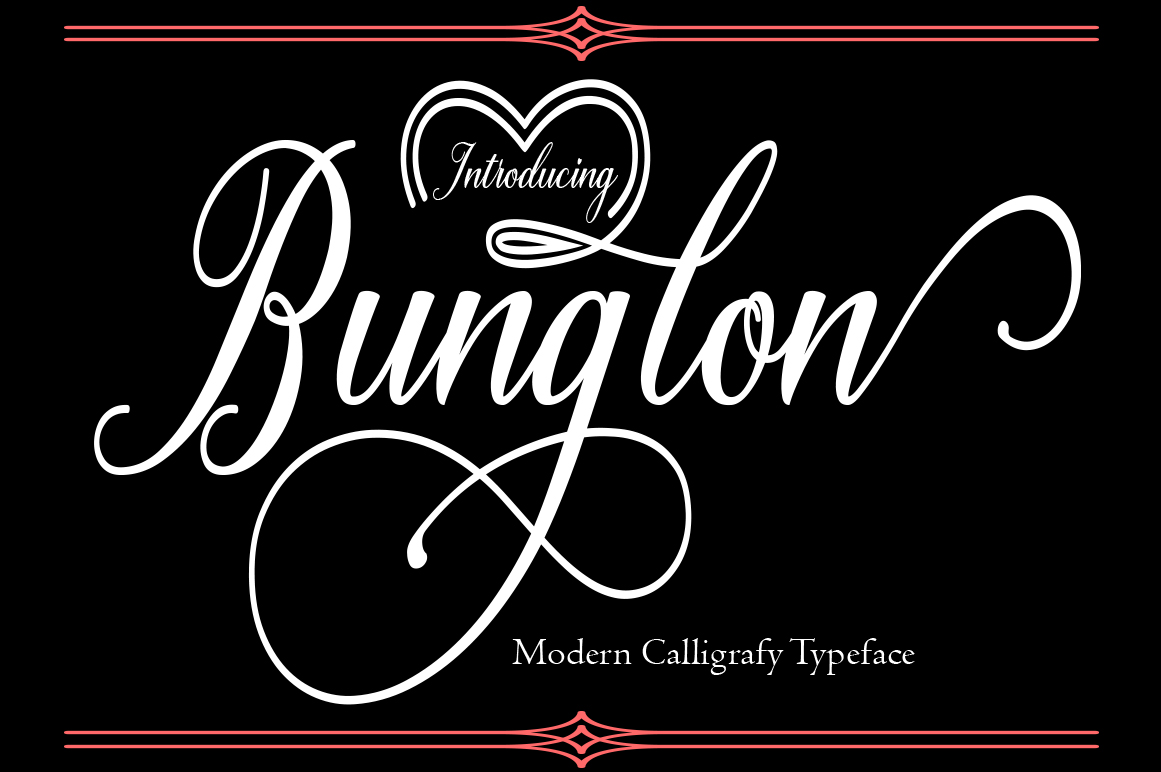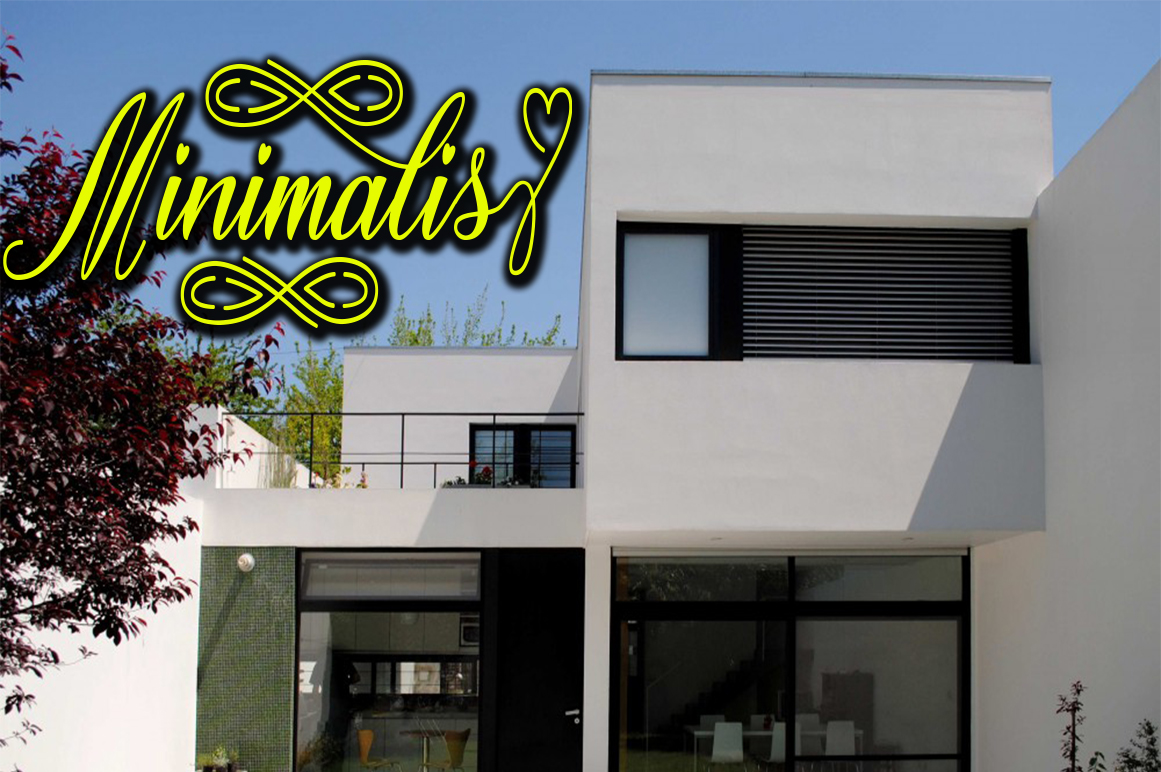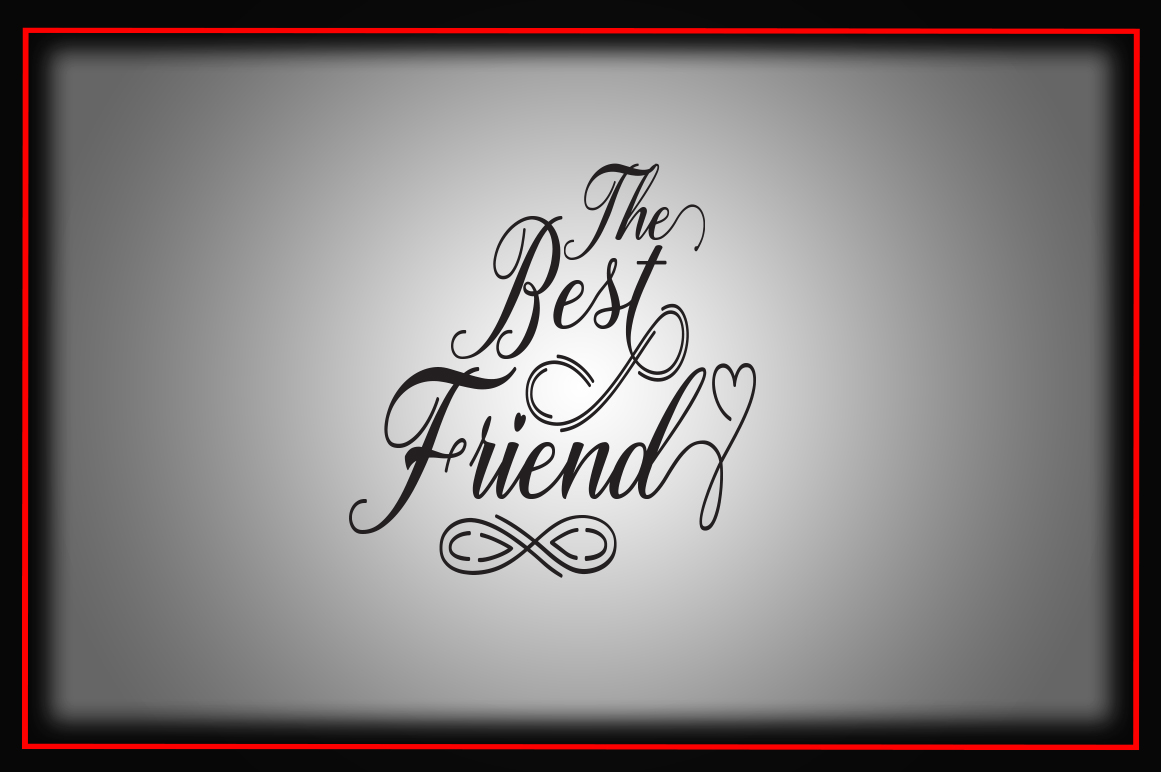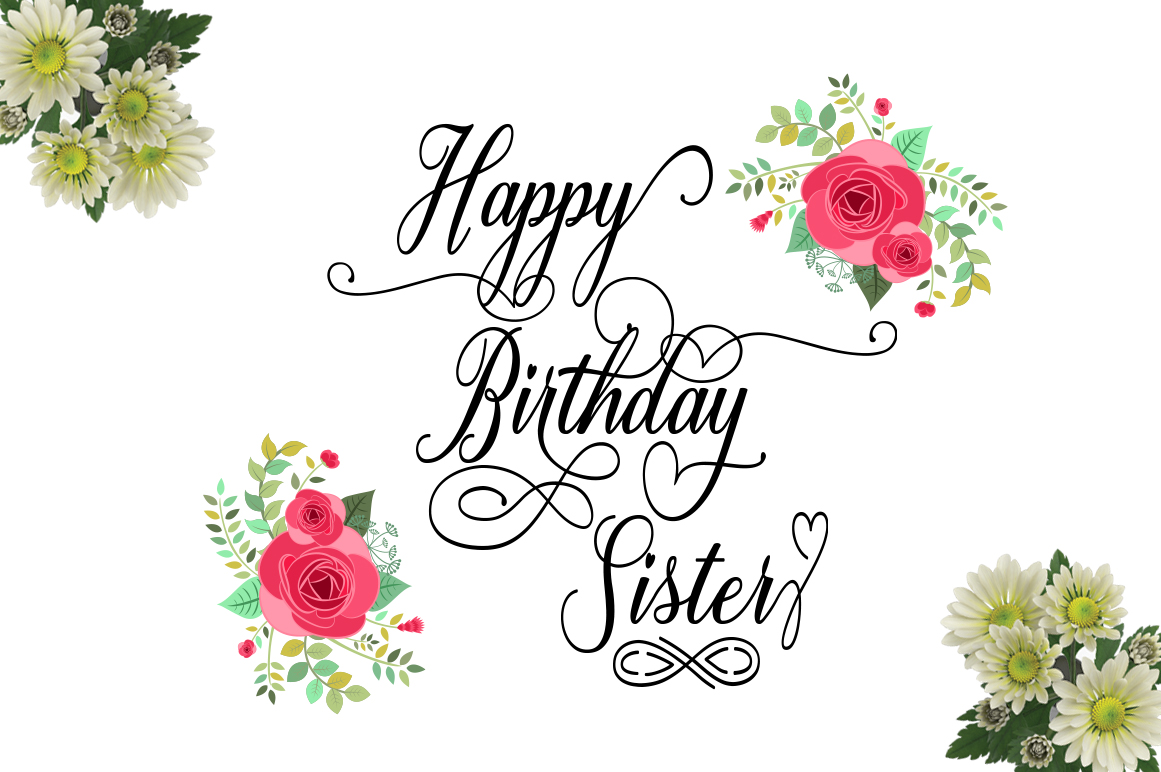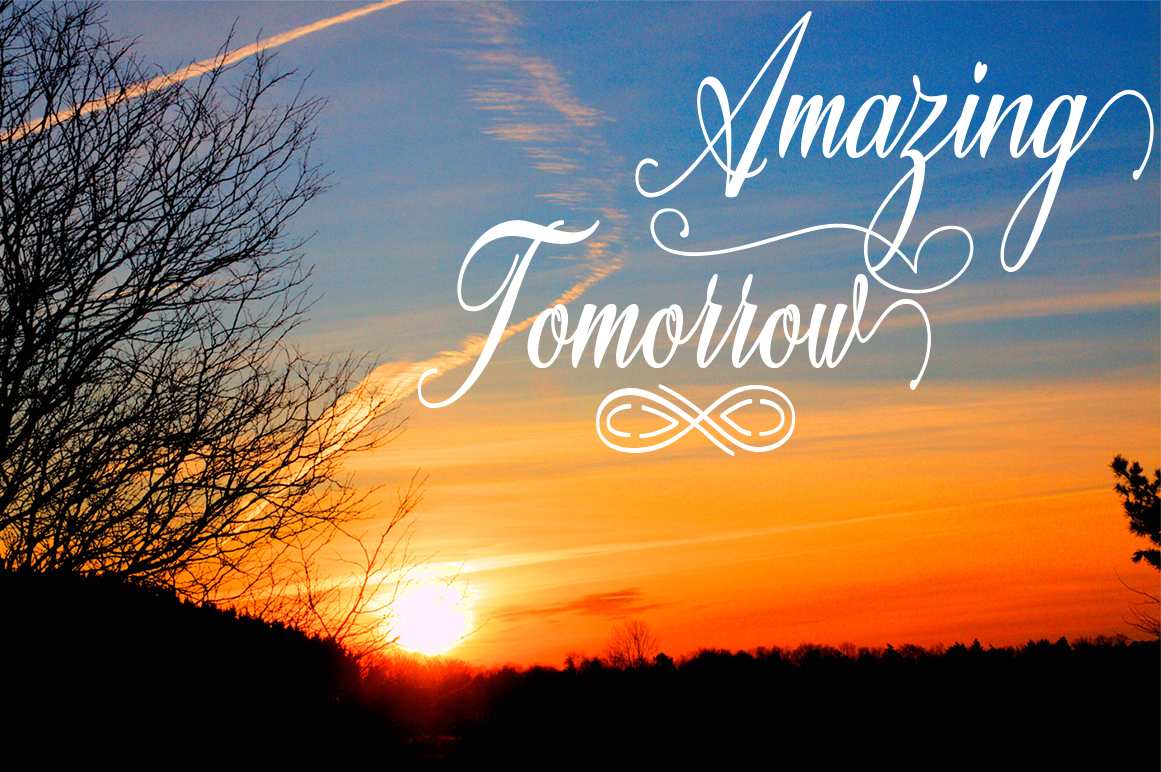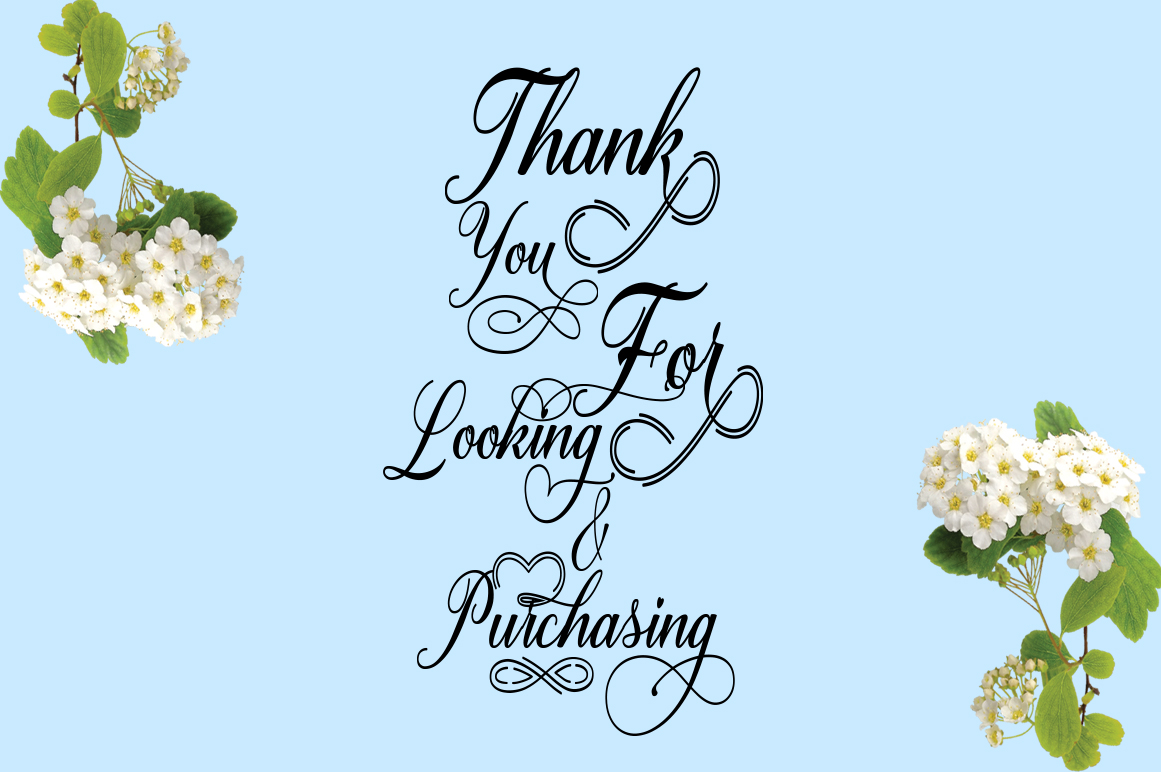
Bunglon Font
About Bunglon Font
Bunglon is a beautiful and modern calligraphy script, perfect for adding some romance and elegance to your designs. This font has variable contrast and dances beautifully.